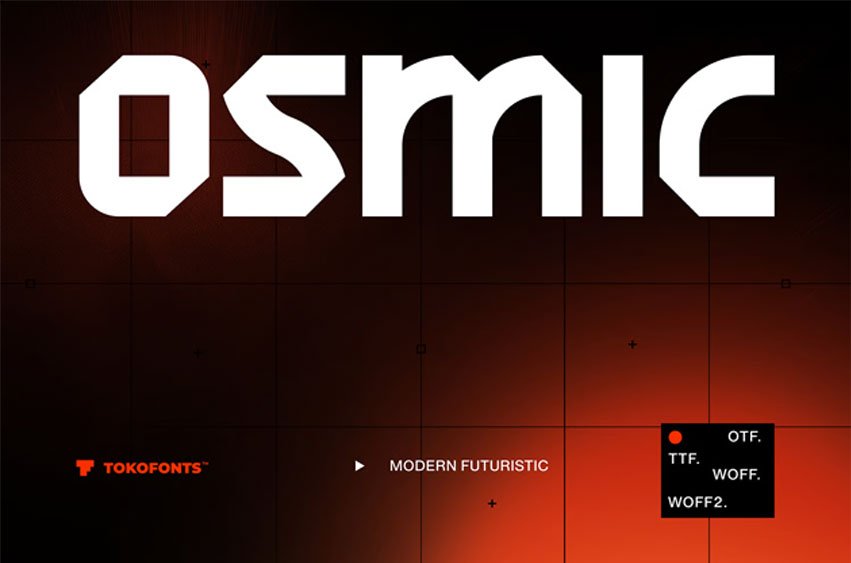
Osmic Font is a modern futuristic display font designed with a sleek and bold character. Its clean lines and geometric structure create a strong visual identity that reflects innovation and advanced technology. The sharp and modern letterforms make Osmic perfect for designs that require a contemporary and digital aesthetic, giving every composition a powerful and forward-thinking appearance.
With its futuristic style, Osmic works beautifully for technology branding, gaming visuals, movie titles, posters, and animation projects. The font delivers a modern and dynamic feel while maintaining clarity and impact, making it an excellent choice for designers who want to create bold, modern, and high-tech visual designs. Font Package Includes: